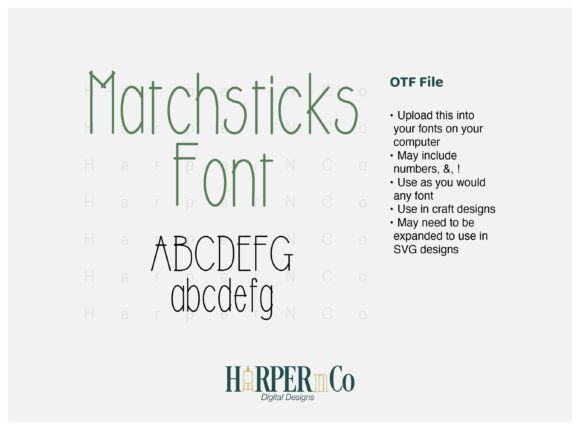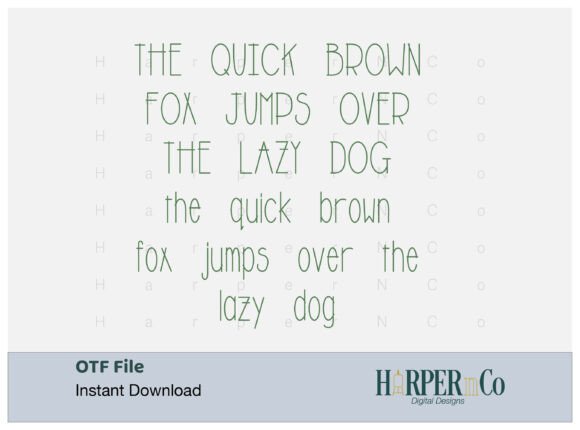
Introduction to Matchsticks Font
A matchstick is a small, thin piece of wood or paper used to start a fire.
It can be playful and creative, often used in crafts to make fun, simple designs Imagine a thin sketch drawn with matchsticks, where each one adds a unique, playful touch to the artwork.
Key Features of Matchsticks Font
Why Choose Matchsticks Font?
Matchsticks Font offers exceptional quality and versatility, making it a valuable addition to your design toolkit. Whether you’re creating for personal projects or commercial use, Matchsticks Font delivers professional results.